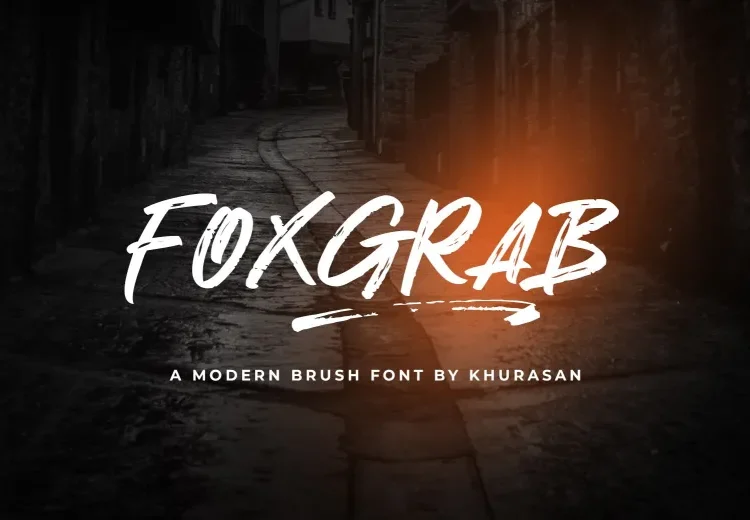
Foxgrab Font
Foxgrab is a striking brush font that seamlessly blends style and functionality, making it an exceptional choice for a wide range of creative projects. With its expressive, handwritten quality, Foxgrab is designed to make a memorable impact whether you’re working on logos, posters, book covers, magazine layouts, banners, or other visually-driven designs.
The font’s fluid strokes and artistic flair capture the essence of hand-drawn typography, adding a personal and creative touch to your designs. Its versatile nature allows it to fit effortlessly into various design contexts, from modern branding and elegant invitations to eye-catching social media graphics and dynamic promotional materials.
Foxgrab’s distinctive style enhances the visual appeal of any project, making it ideal for use in:
• Logos and Branding: Create unique and memorable brand identities with Foxgrab’s distinctive brush strokes.
• Posters and Banners: Capture attention with bold and stylish typography that stands out in any setting.
• Books and Magazines: Add a touch of personality to your book covers and magazine layouts, making them more engaging and visually appealing.
• Social Media and Advertising: Use Foxgrab to craft eye-catching graphics and advertisements that resonate with your audience.
Whether you’re designing for print or digital media, Foxgrab provides the flexibility and aesthetic quality needed to bring your creative visions to life. Its handwritten appearance brings authenticity and charm to your designs, ensuring that your work not only stands out but also leaves a lasting impression.